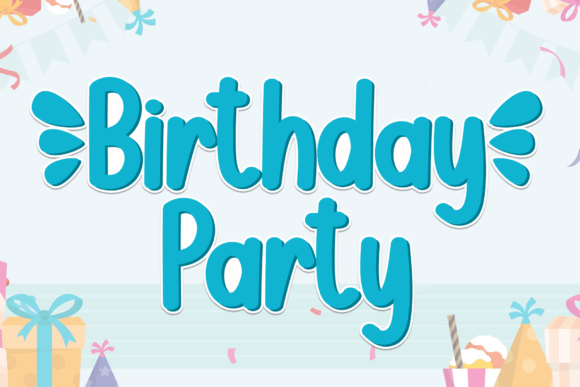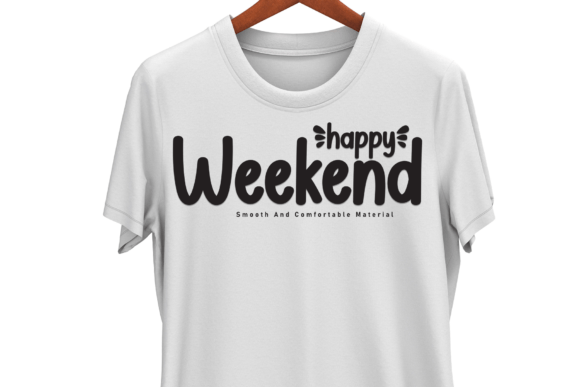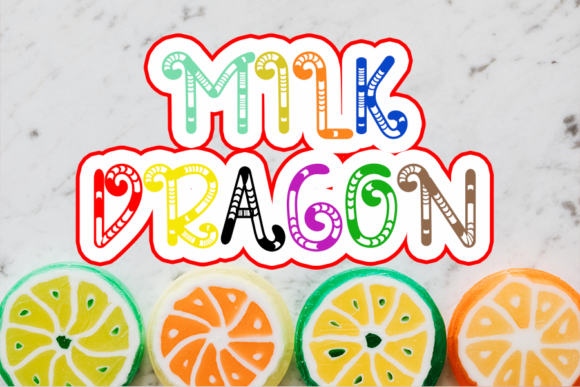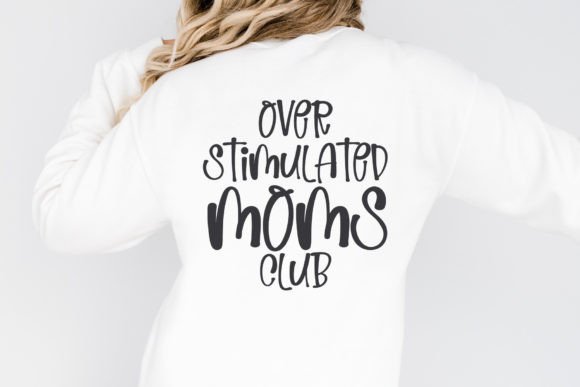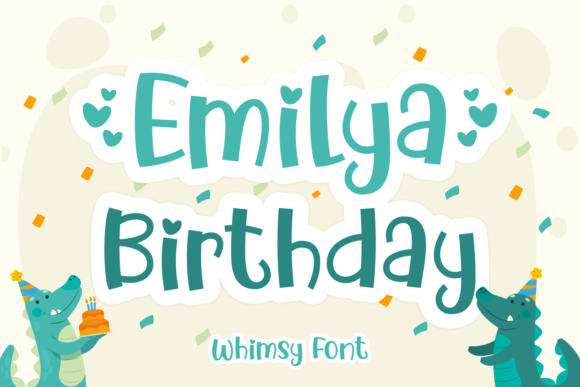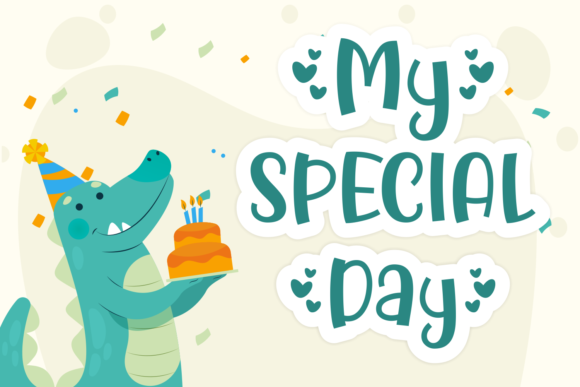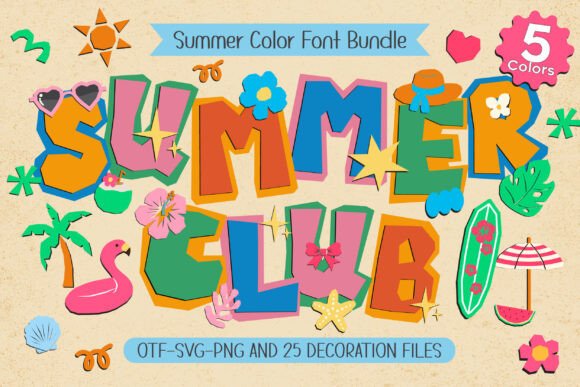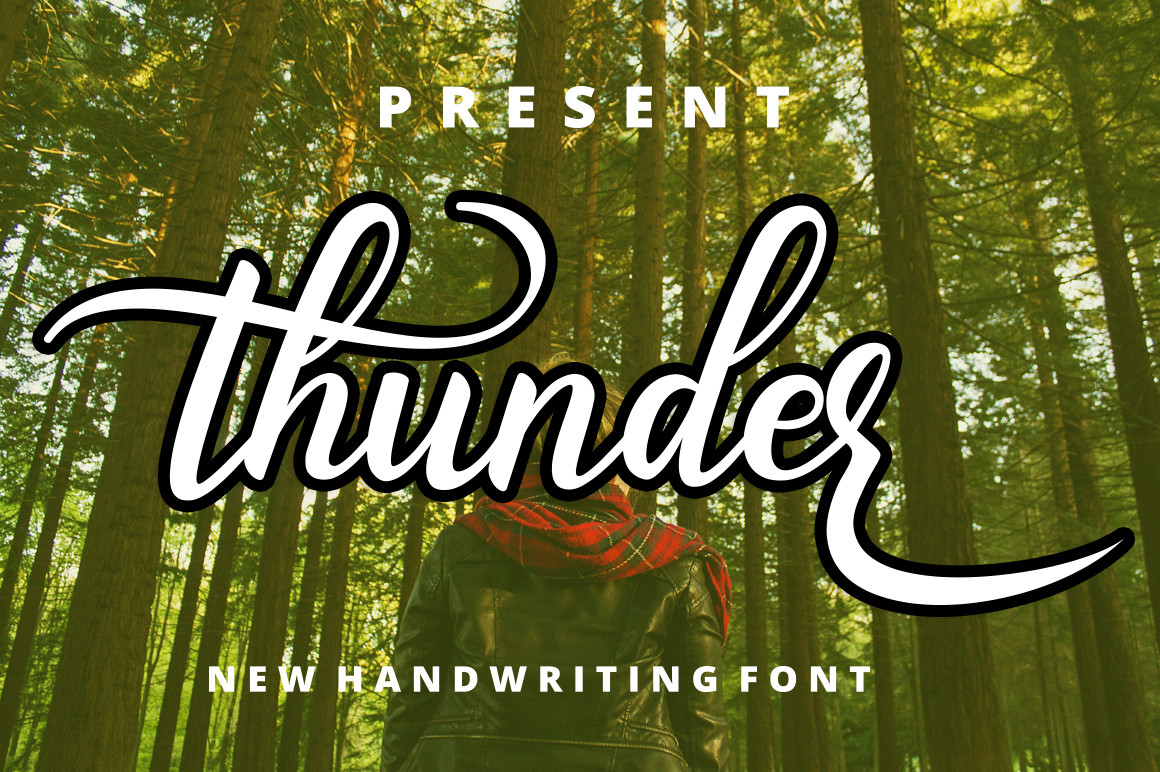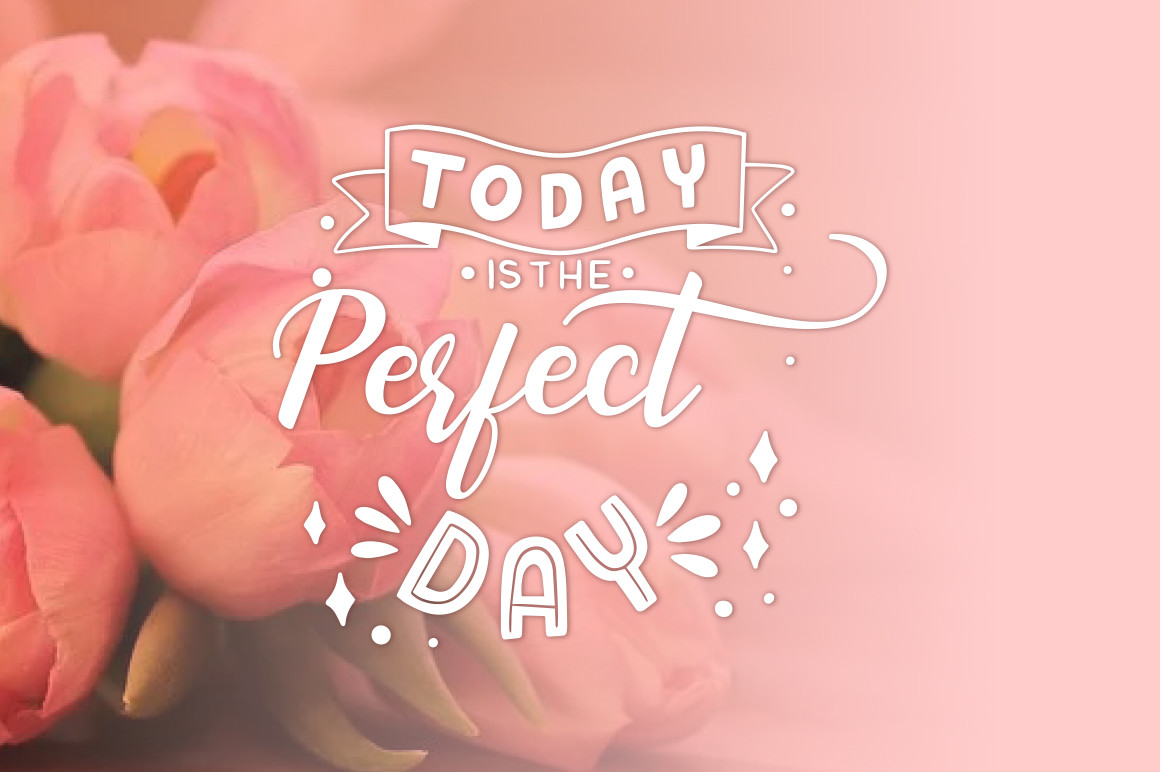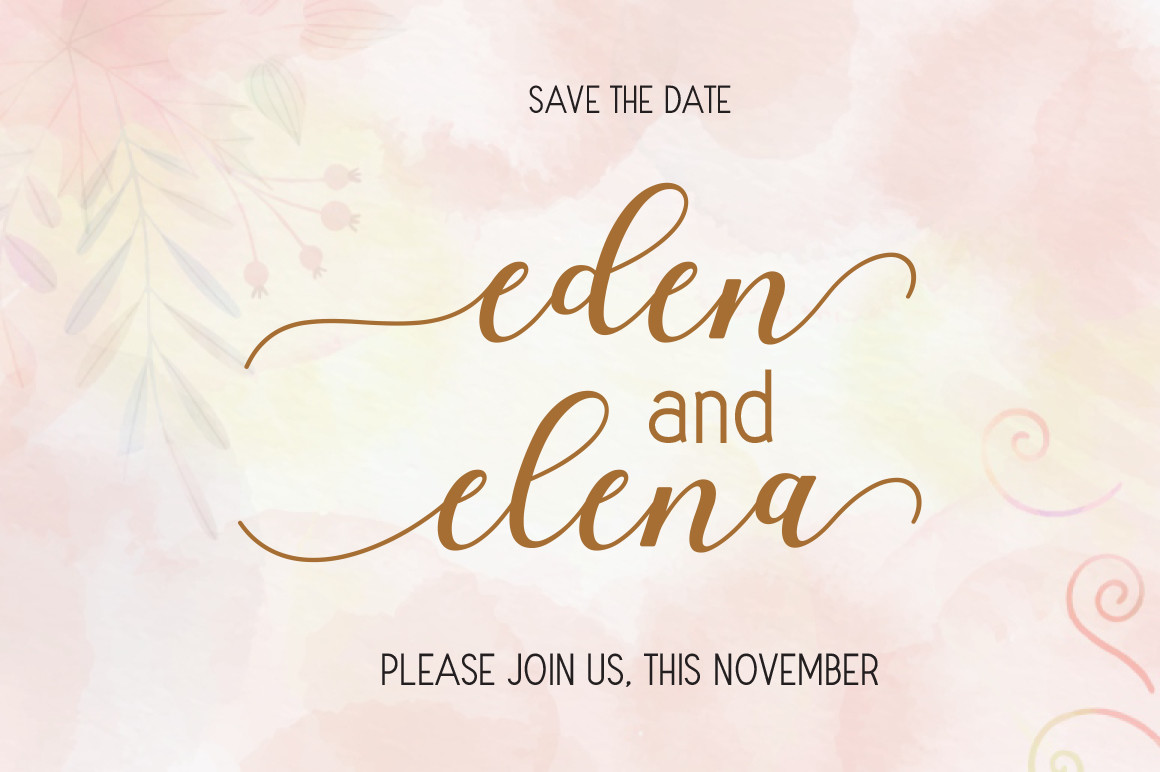
21 Best Birthday Fonts for Cricut & Party Decor (Commercial Use)
Planning a birthday party or running an Etsy shop that specializes in custom party decor is an exciting process, but choosing the right typography can make or break your design. If you’ve ever tried cutting a thin, delicate script on a Cricut machine only to have your vinyl tear, weed poorly, or ruin a cake topper, you know how frustrating bad font choices can be.
Whether you are crafting custom “Birthday Girl” t-shirts, acrylic cake toppers, wooden welcome boards, high-gloss balloon decals, or personalized invitations, having cut-friendly, high-quality fonts is essential.
In this curated roundup, we have gathered 21 of the absolute best birthday fonts. All of these fonts are tested for clean cutting on Cricut and Silhouette machines, feature beautiful decorative swashes or bold outlines, and come with a commercial license so you can legally sell your physical and digital creations.
🎈 Playful & Cute Kids Birthday Fonts
- 🎈 1. Birthday Party Font — Bubbly, clean-structured display font designed for easy vinyl weeding.
- 🍬 2. Candy Birthday Font — Sweet, hand-drawn whimsical lettering ideal for custom kids’ apparel.
- 🧃 3. Jellybean Fun — Thick, rounded chunky type that fills cardstock space beautifully.
- 🎨 4. Emilya Birthday Font — Bouncy cartoon-style font balanced for joyful party invitations.
- ☀️ 5. Summer Club Font — Dynamic, sunny color font tailored for bright sublimation and beach merch.
👑 Elegant Script & Calligraphy with Swashes
- ⚡ 6. Thunder Font — Flowing modern script with PUA-encoded decorative alternate swashes.
- 💖 7. Mylove Script Font — Romantic, delicate calligraphy set featuring a generous swash collection.
- ✍️ 8. Autography Font — Well-proportioned elegant script ideal for clean, high-end event headlines.
- 🍾 9. Malinda Font — Formal, composed calligraphy finish made for premium packaging and acrylic decor.
- ✨ 10. Aleria Script Font — Thick-bodied script crafted for smooth vinyl cutting without shredding swashes.
☮️ Retro Groovy Birthday Vibes
- 🌸 11. Always Groovy Font — Round, playful retro display typeface for flower-power party decor.
- 🕺 12. Chunky Retro Font — Bold 70s display face with thick rounded corners built for wide-format banners.
- ✌️ 13. Groovy Retro Script Font — Authentic late-60s vintage script with smooth, confident curves.
- 📻 14. Retro Groovy Font Bundle — 7-font retro collection offering coordinating weights for full party suites.
- 🛼 15. Retro Fonts Collection Bundle — Versatile vintage set spanning serifs, scripts, and display options.
🎂 Bold Display & Balloon Party Fonts
- 💥 16. Comic Pop Font — Loud, chunky comic book display face designed for high-impact party graphics.
- 🎉 17. Fabulous Party Font — Thick, handwritten-style display face with a natural, energetic baseline.
- 👑 18. Emanie Display Font — Chic, confident display lettering for upscale milestone celebration branding.
- 🪨 19. Rock Hide Font — Ultra-thick blocky display type that remains readable over busy backgrounds.
- 🍯 20. Thick Honey Duo Font — Perfectly matched bold display and script pairing for multi-tier headlines.
- 🎈 21. Floridin Font — Neat, rounded display lettering that layers effortlessly against balloon decor.
🎈Playful & Cute Kids Birthday Fonts
1. Birthday Party Font
- Designer’s Review: Birthday Party is a highly functional and cheerful display font with a highly polished, bubbly look. The outlines are structured and clean rather than overly complex, giving it a playful yet crisp aesthetic. It’s my go-to choice when a crafter wants something fun for kids but needs it to be incredibly easy to weed on a cutting machine.
- My Rating: Style: 9.0/10 | Cricut Cutting Ease: 9.8/10
- Best Used For: Vinyl birthday banners, cupcake toppers, and kids’ party invitations.